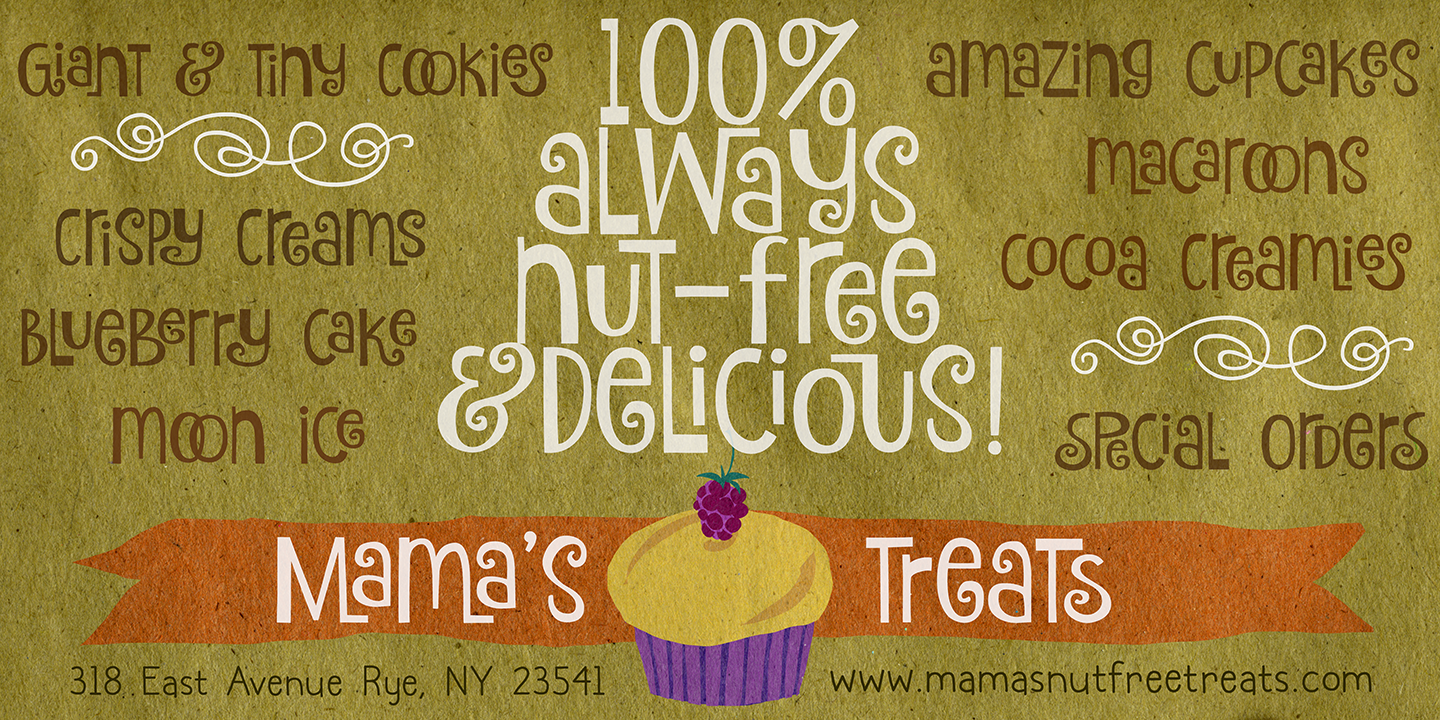
Laughing Gull Font is perfect for creative projects including logo design, branding materials, wedding invitations, greeting cards, social media graphics, poster designs, book covers, and artistic headlines that require a distinctive and memorable typeface.
What makes Laughing Gull Font exciting is its unique blend of playful elegance and professional versatility. This remarkable typeface captures attention with its carefully crafted letterforms that balance whimsy with readability, making it an ideal choice for designers seeking to create memorable visual experiences that stand out in today's competitive marketplace.
The Laughing Gull Font family includes multiple weights and styles, offering designers comprehensive typographic solutions. From light and regular weights to bold variations, each style maintains the font's characteristic charm while providing flexibility for various design applications and hierarchical text arrangements.
Whether you're working on corporate branding or creative projects, Laughing Gull Font Free Download provides exceptional value for designers and creative professionals. This versatile typeface combines modern aesthetics with timeless appeal, ensuring your designs remain fresh and engaging across different media platforms.
The font's carefully designed characters feature smooth curves and balanced proportions that enhance readability while maintaining visual interest. Professional designers appreciate how Laughing Gull Font seamlessly integrates into various design workflows, from digital applications to print materials, making it an essential addition to any comprehensive font library for contemporary design projects.